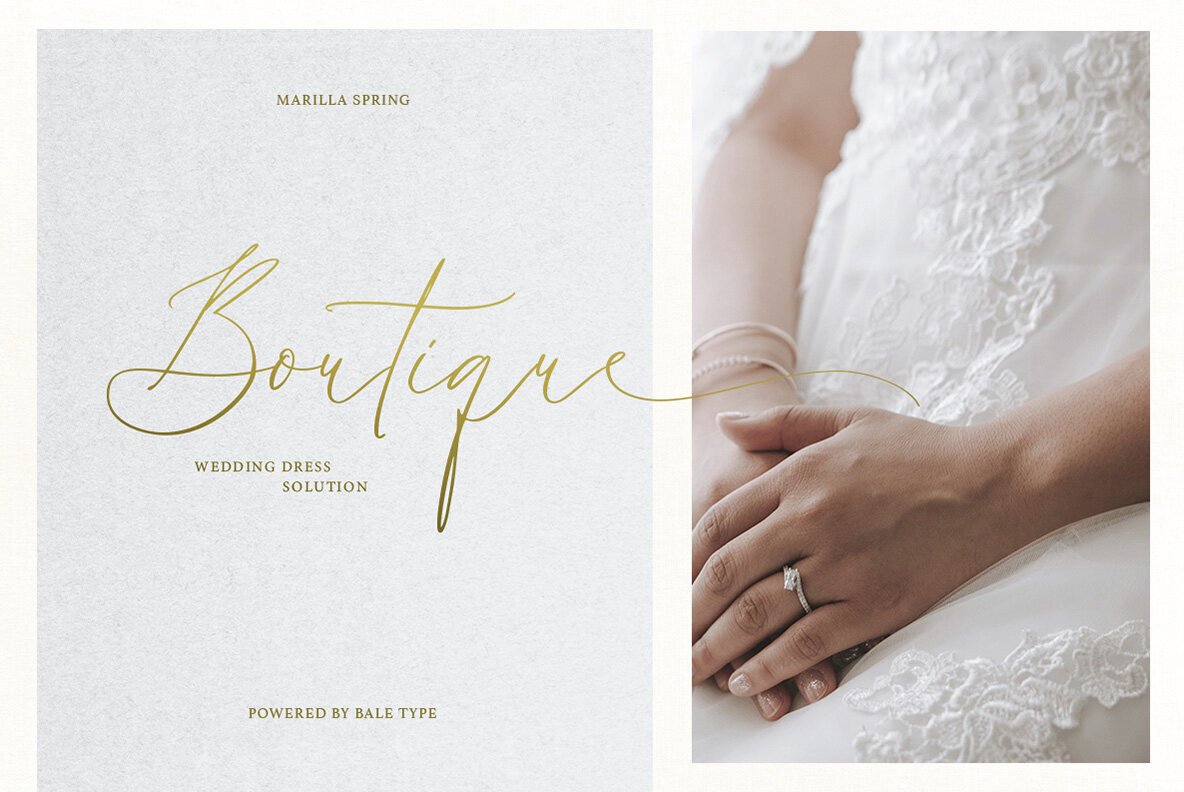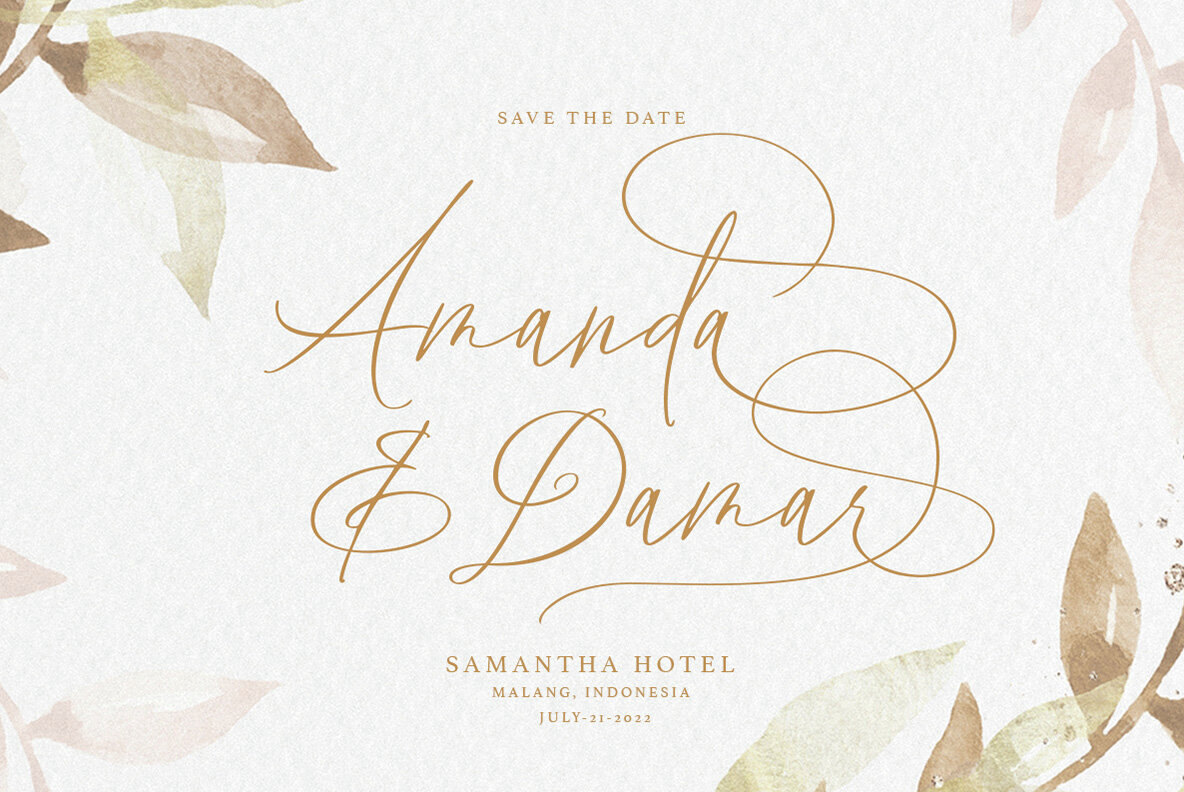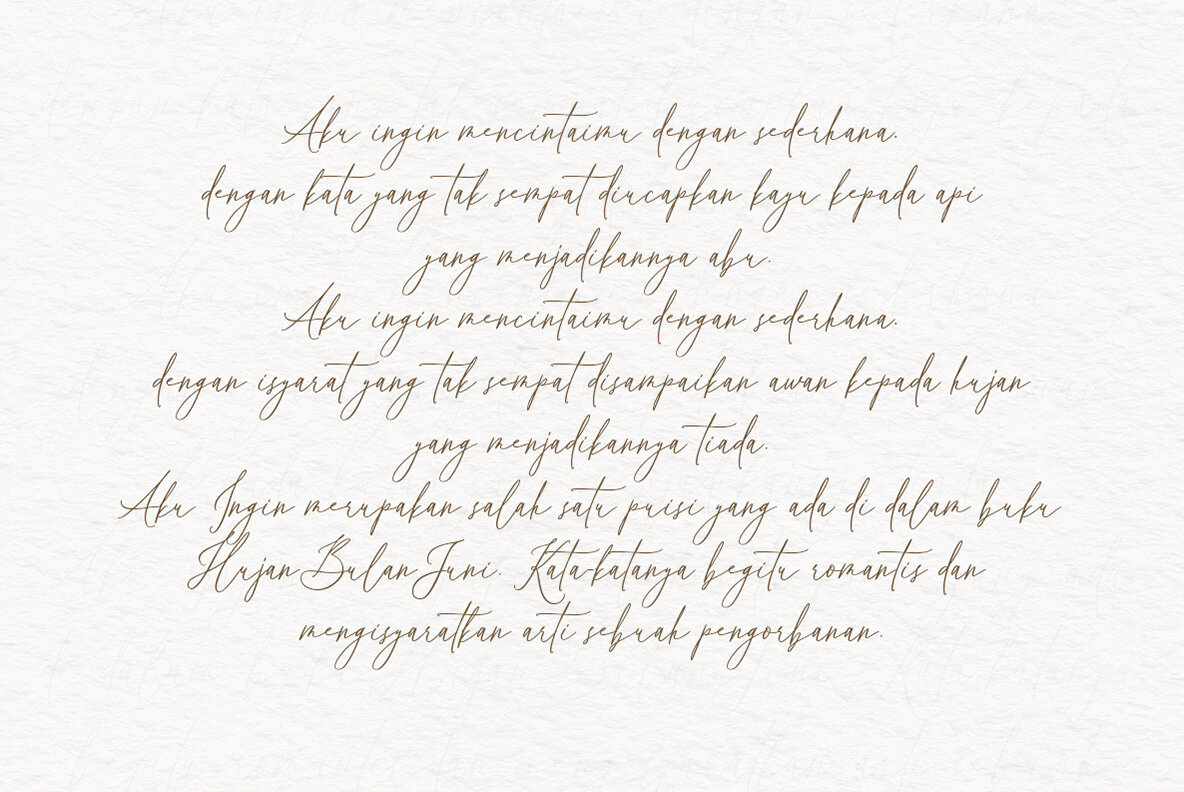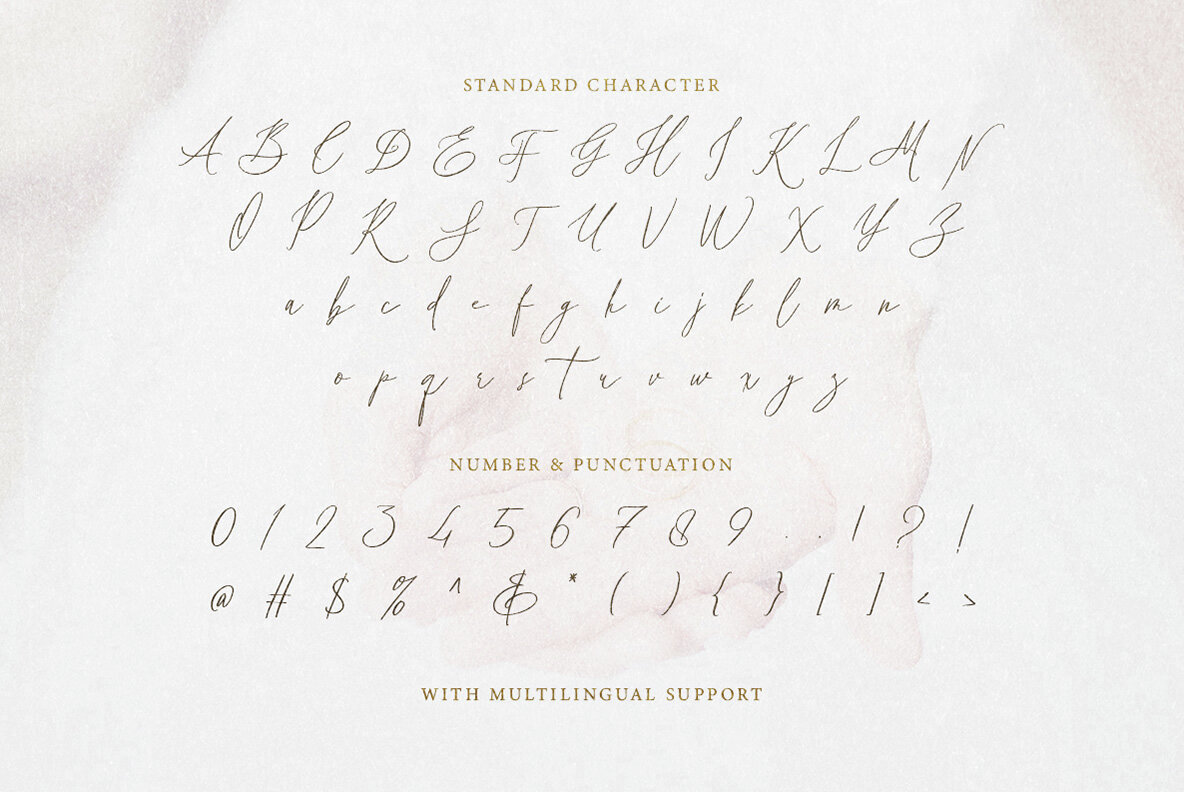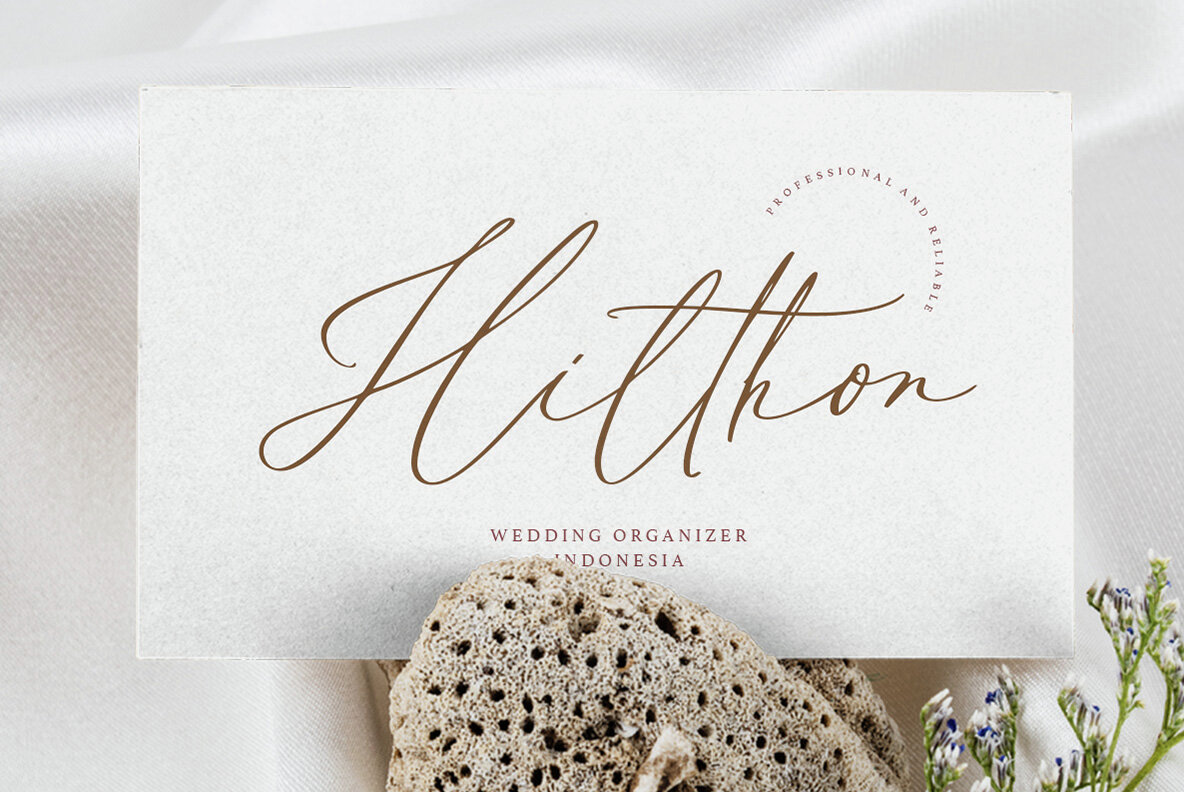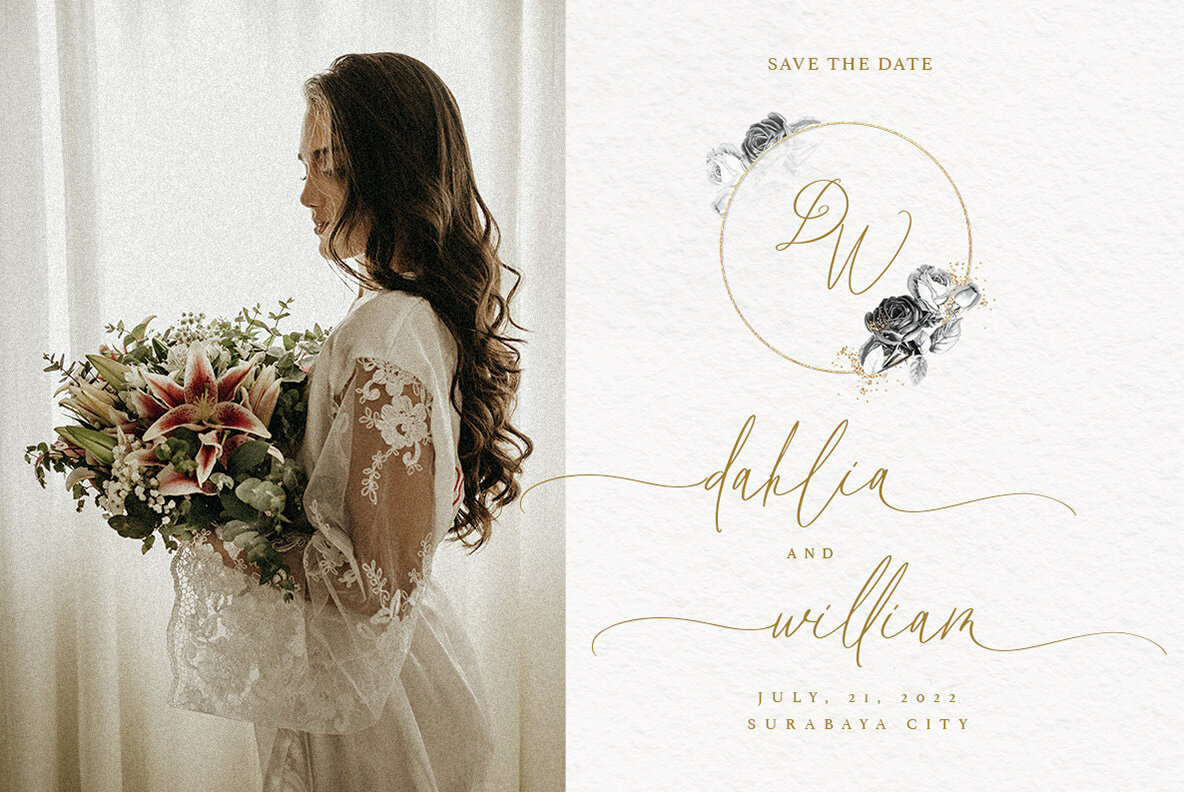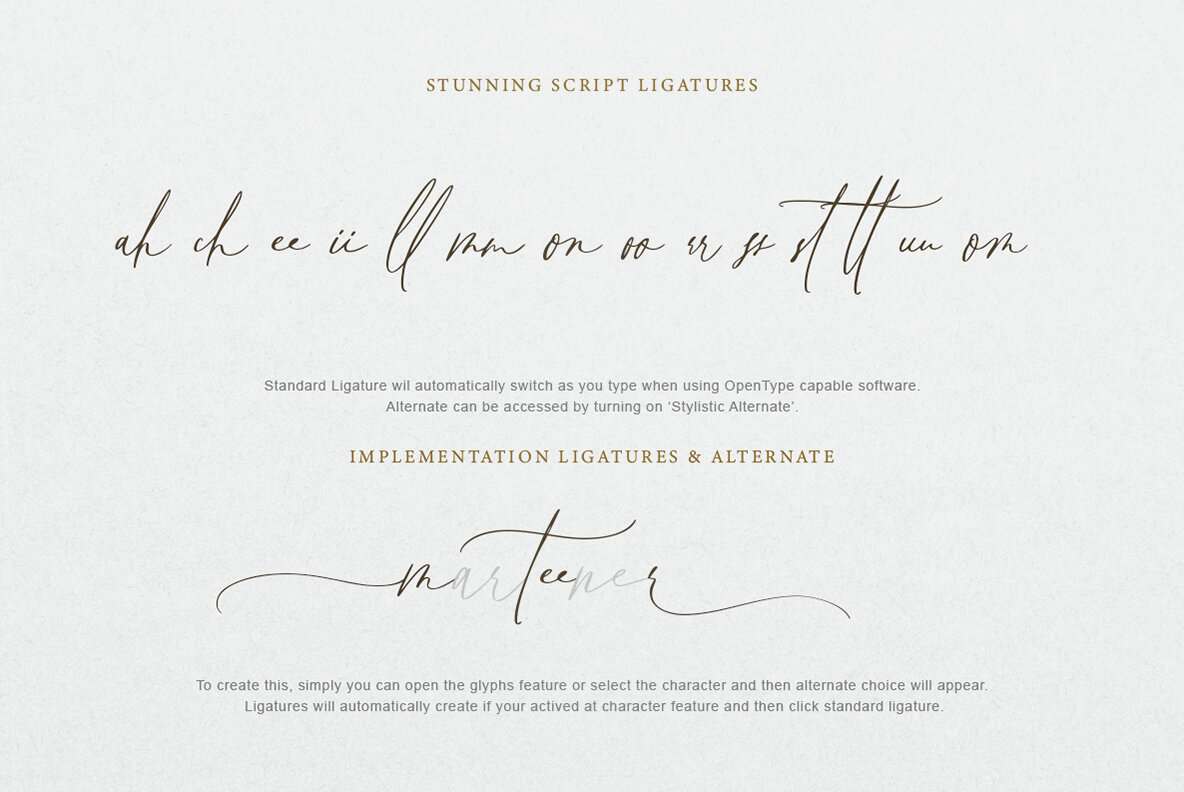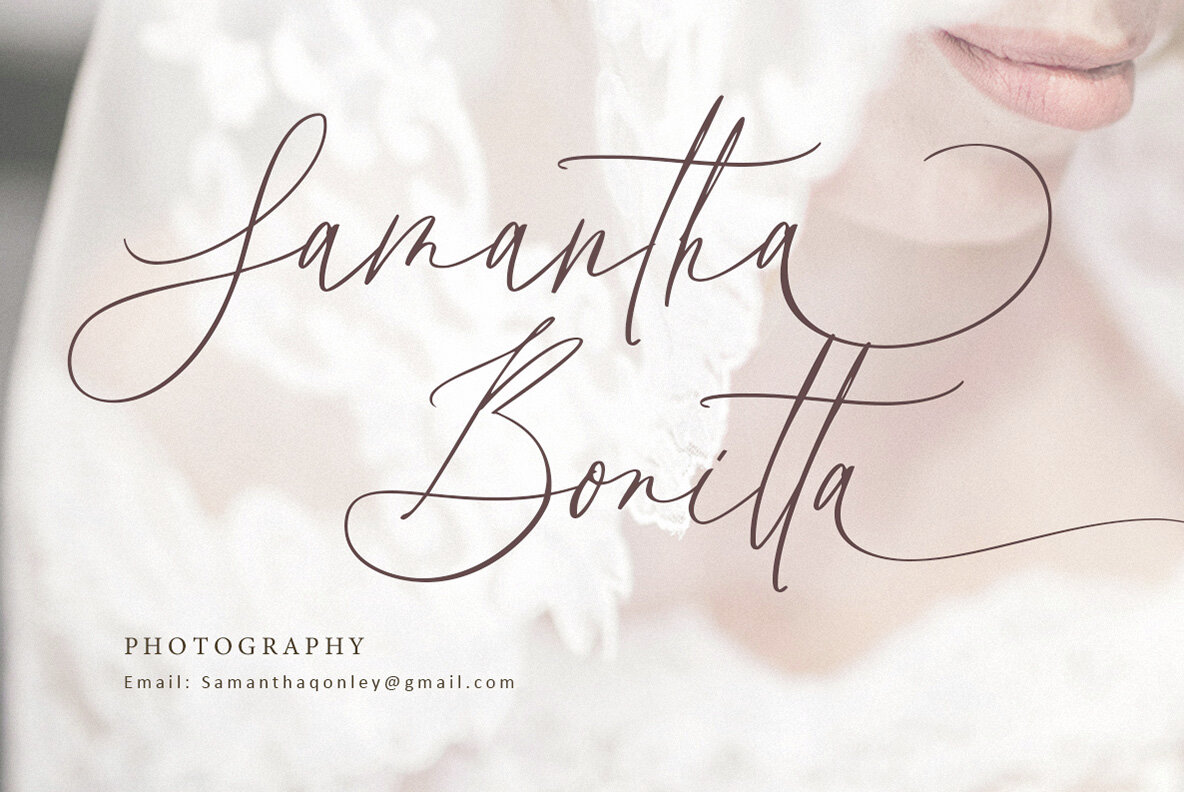
Marilla Spring Font
Marilla Spring Regular
Marilla Spring is a beautiful modern script that contain lowercase, uppercase, symbol, and also support multi language. Including ligatures, initial & terminal swash, special swash, up to 5 set alternates in total. You can use this font to make a feminine logo branding, suitable for wedding invitation, or handwritten quote. Let this font make your design more lovely and classy.